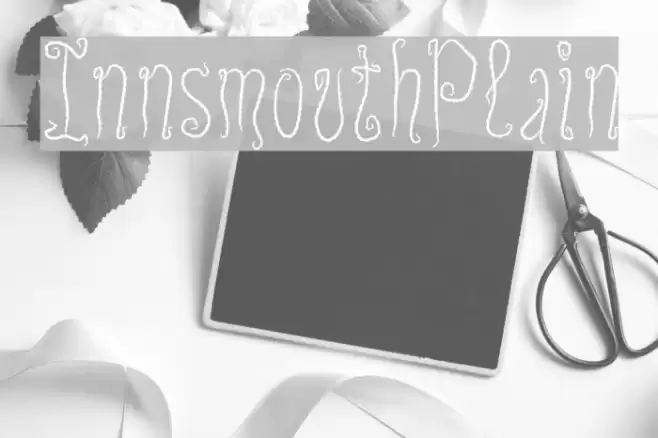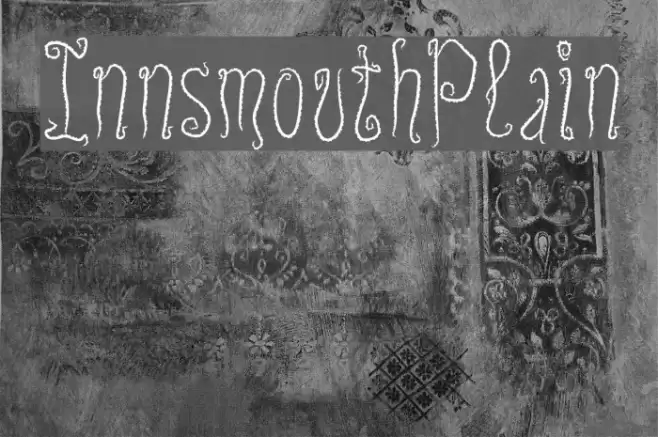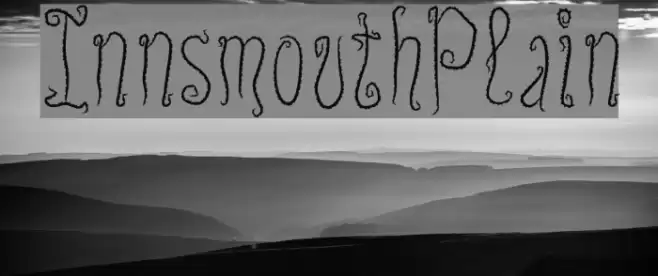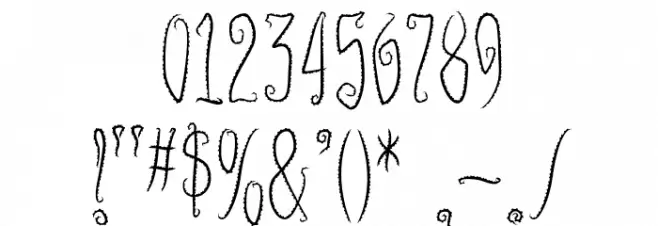
InnsmouthPlain Font
InnsmouthPlain Description
This font features a whimsical and slightly eerie design, with each character adorned with unique, swirling embellishments that evoke a sense of mystery and fantasy. The letters are tall and slender, with elongated ascenders and descenders that give them a distinctive, flowing appearance. The overall style is reminiscent of hand-drawn calligraphy, with a playful yet sophisticated edge. The numbers and special characters maintain the same decorative flair, ensuring consistency across all elements. This font is perfect for projects that require a touch of the fantastical or the unusual, making it ideal for themed events, creative branding, or artistic endeavors.
A whimsical, decorative font with swirling embellishments and a hand-drawn feel from Uncategorized fonts.